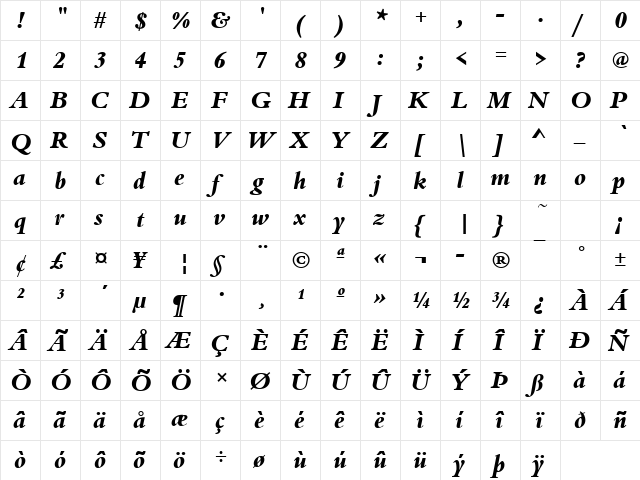
URWBeruiniTExtBol Italic Font Preview
URWBeruiniTExtBol Italic
Design Context for URWBeruiniTExtBol Typeface
URWBeruiniTExtBol is a composed and adaptable typeface that performs quietly and consistently across a wide range of design contexts. Its italic angle brings a sense of urgency and motion to the letterforms.
Pro Tip: Try URWBeruiniTExtBol for annotation and caption copy alongside an upright companion — the contrast in angle creates a dynamic but ordered typographic system.